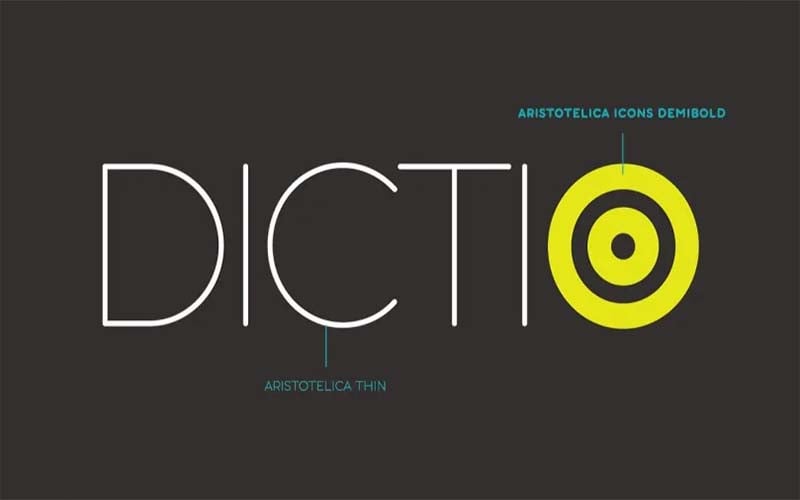
Aristotelica Font is a softly rounded modern sans serif typeface, this is the new 2020 design of round geometric sans and brings positivity and fun life to what you are saying. That’s why it is ready for anything.
This fresh font was designed by Cosimo Pancini, and Andrea Tartarelli and published by Zetafonts. This display stunning typeface comes in three unique styles including Bold, Light, and Regular.
Its structure is geometrically modern which the designer has passion developed. That’s why you will see that its characters have basic features as well as modern features that will work properly according to modern times.
Its structure has been created with a good round flow in which the designer adds excessive typefaces. Breathing makes this flow extra creative in the sans-serif field. Take a look at this font to bring a modern look and feel to your logos, banners, and apparel designs.
As such, this remarkable font will work really well for small and large designs. And just like any other breath font, you can use it with other fonts for a couple of font cases.
With this awesome font, you can create emblems, long text paragraphs, headlines, titles, posters, creative agencies for crafting logos printing on cards, news headings, and website headers for modern startups.